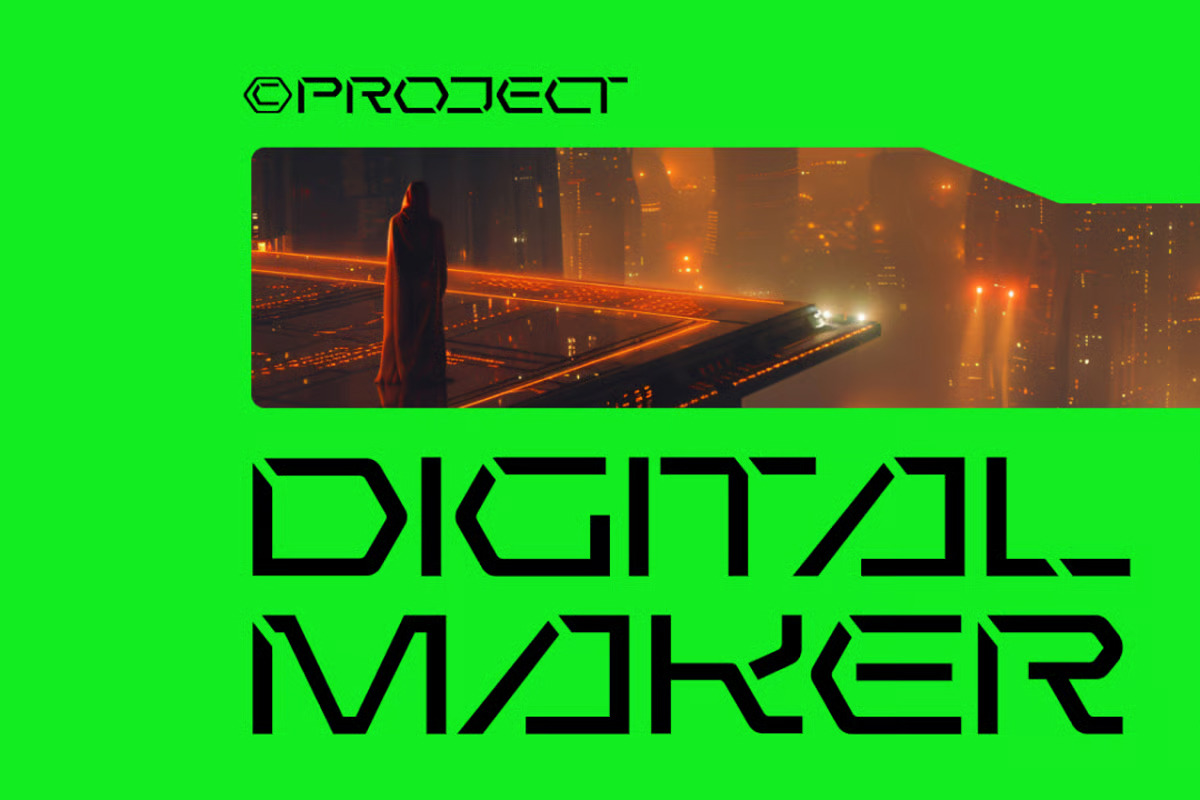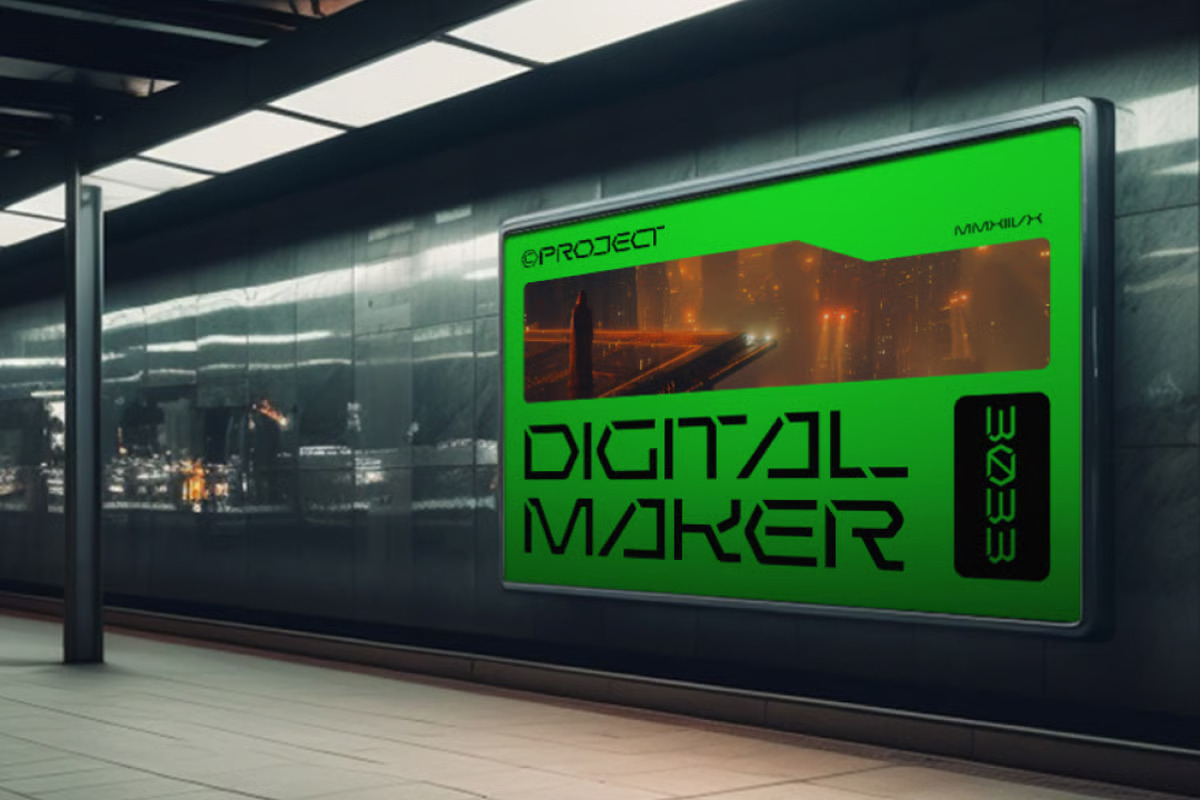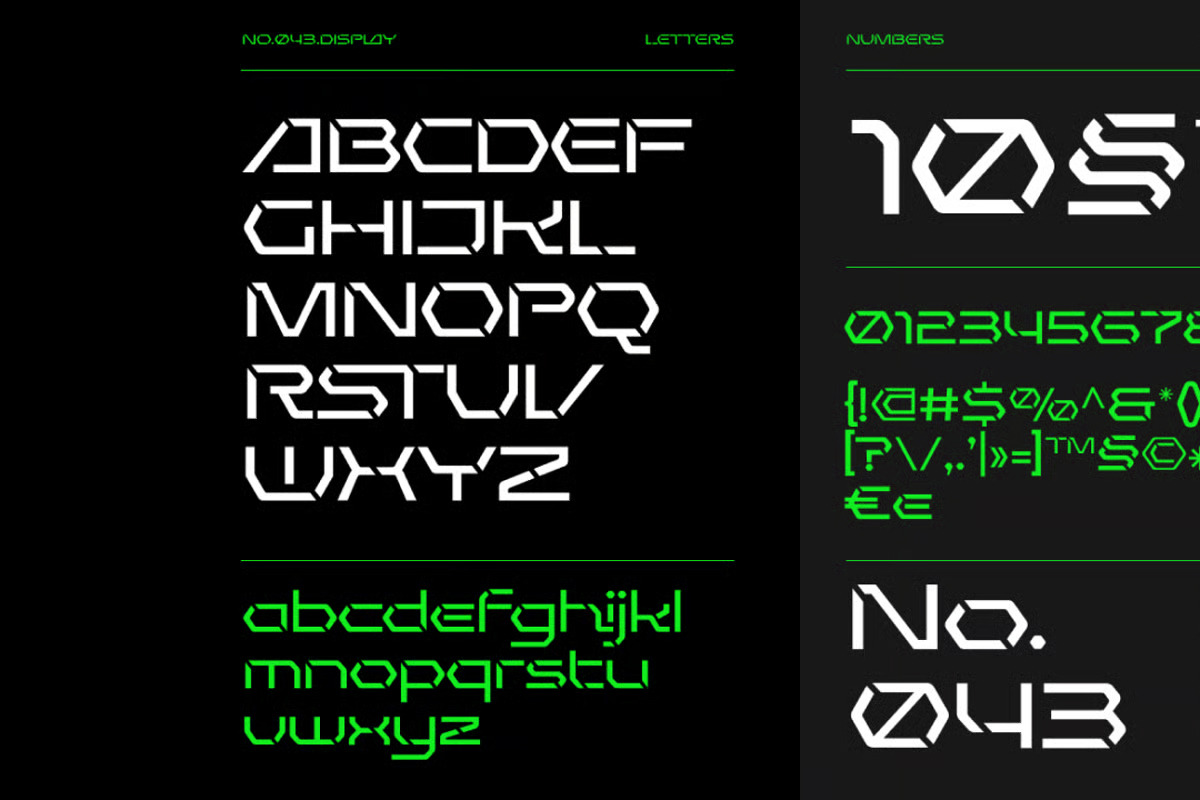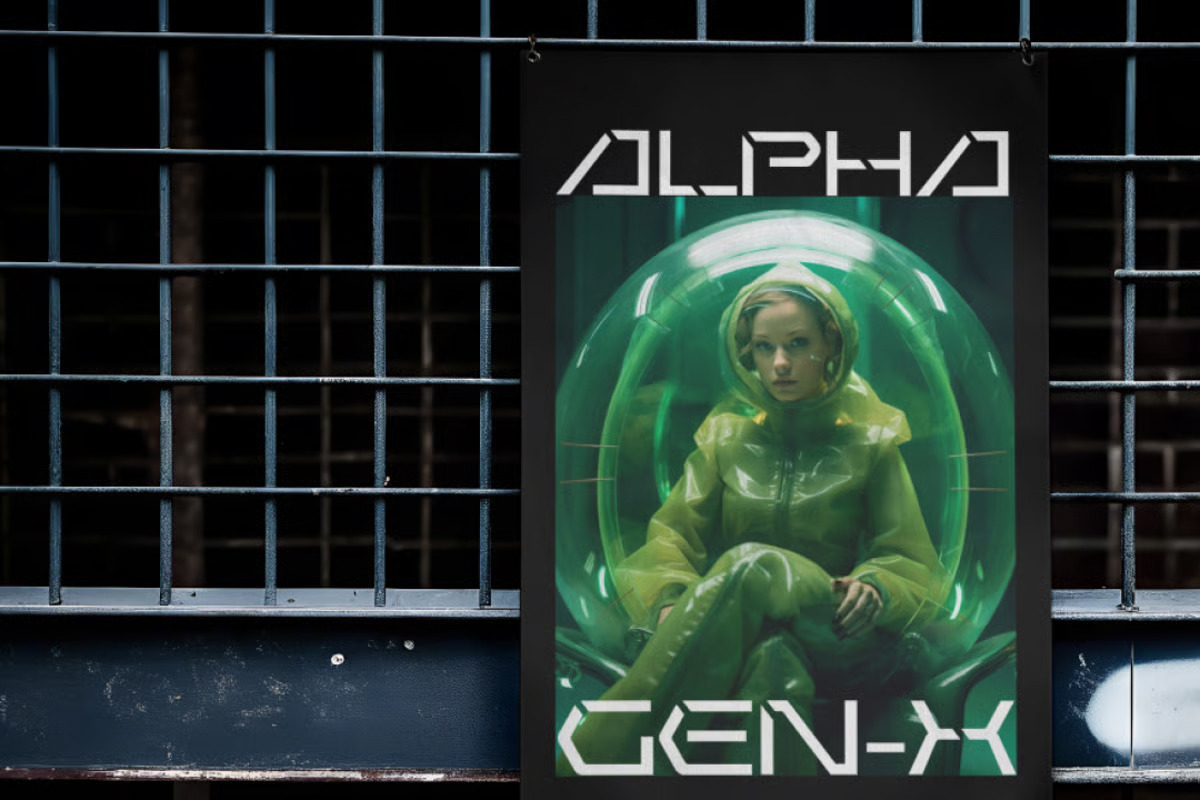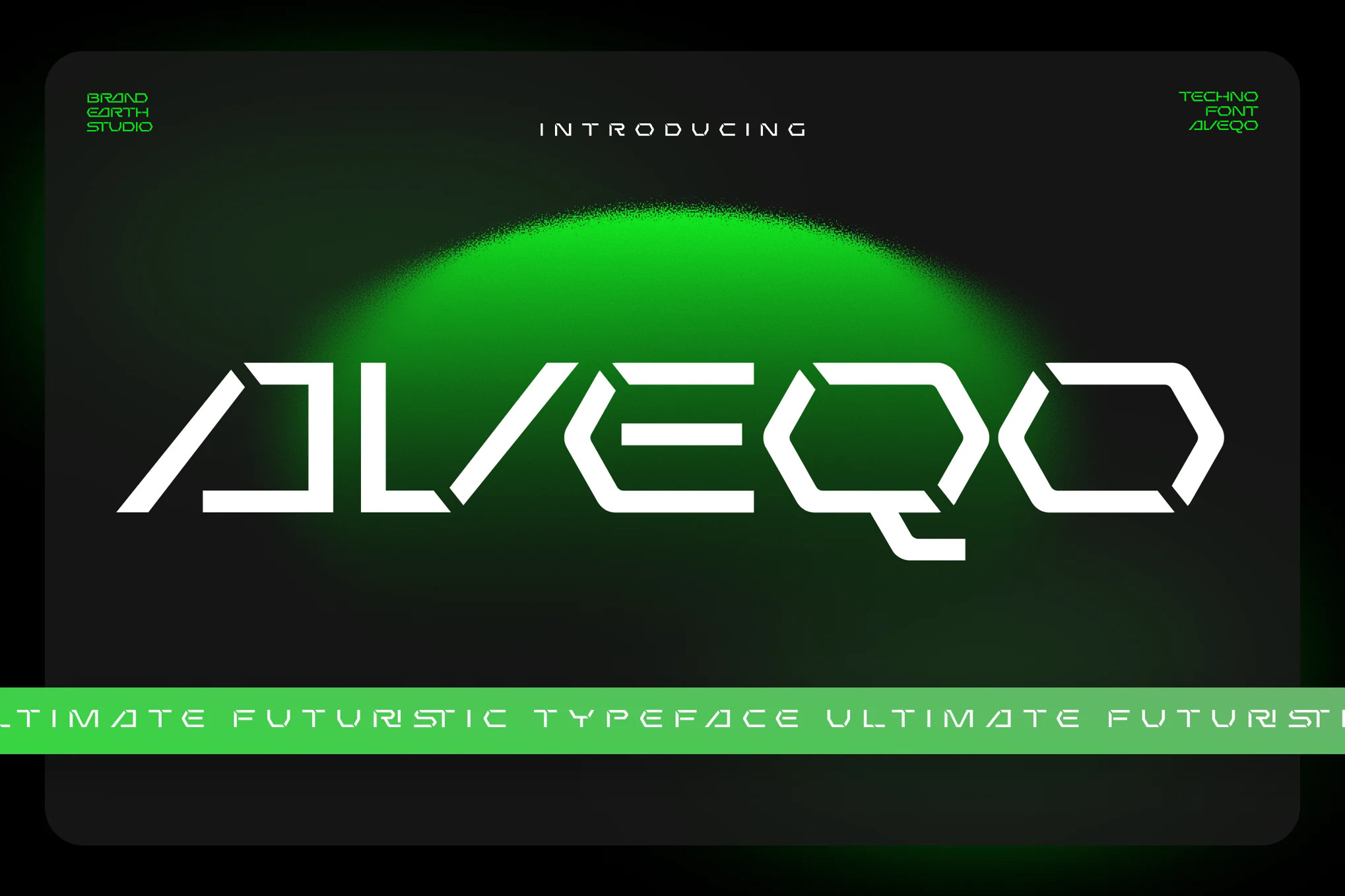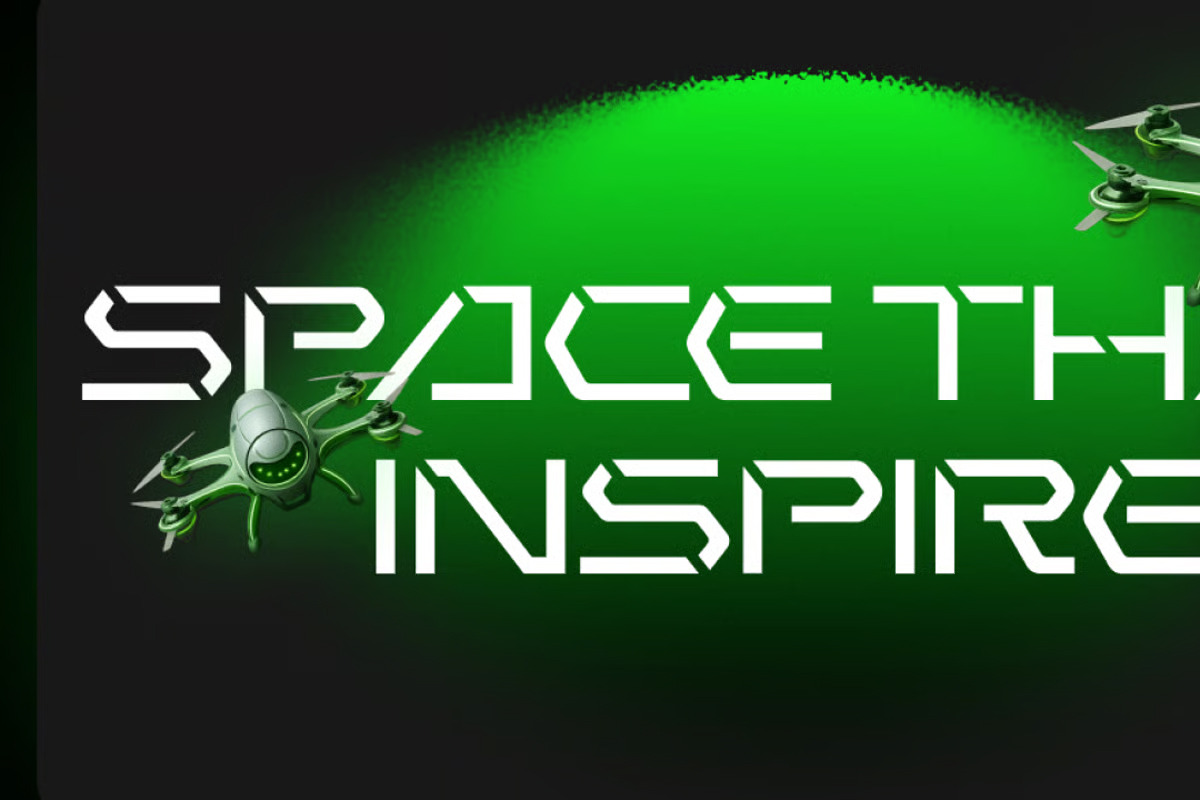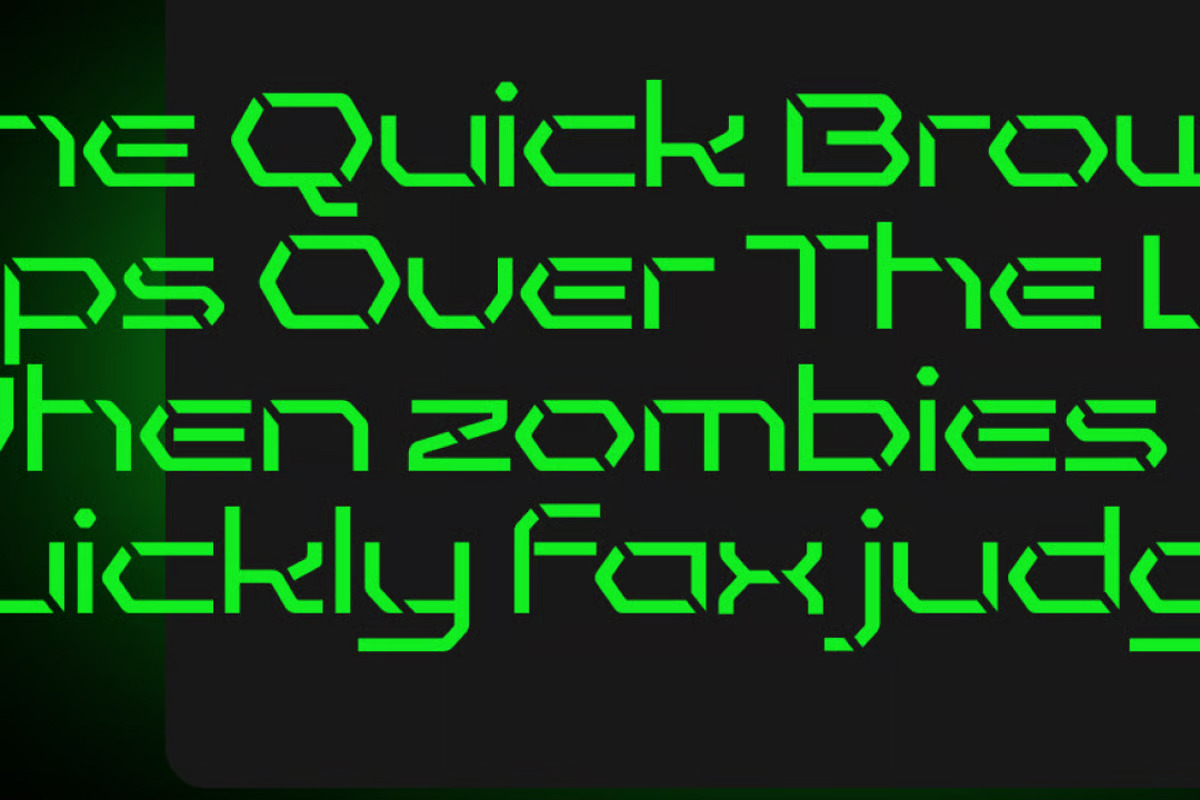
Aveqo – Futuristic Display Font
AVEQO is a cutting-edge futuristic display font designed for bold, high-impact designs that demand attention. Its sleek, angular letterforms are heavily stylized with a digital, cyber-aesthetic that feels right at home in the world of gaming, sci-fi, and tech branding.
The font's sharp lines and high-tech energy evoke a sense of innovation, speed, and digital mastery, making it ideal for projects that lean into a futuristic or cyberpunk theme.
Built to impress in large displays, AVEQO thrives in video game titles, tech branding, digital billboards, and streaming overlays. Whether you're launching a new game, a music video, or tech startup, this font sets the tone for forward-thinking creativity.
Step into the future with AVEQO—the bold, edgy font that transforms your digital identity into a high-impact visual statement. Perfect for creators who design for tomorrow, today.
Main Features
Ligatures & Alternate
Numeral & Punctuations
Suitable For: video game titles, tech branding, digital billboards, tech startups, sci-fi movie titles, gaming interfaces, streaming overlays, digital campaigns, posters, or cyberpunk-themed visuals, movie posters, album art, event promotions, UI/UX design, merchandise, editorial layouts, billboards, and AR/VR projects.